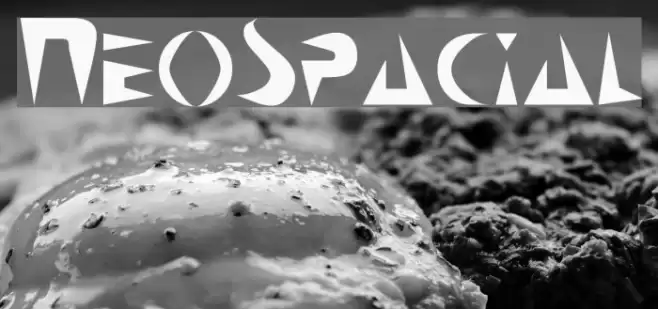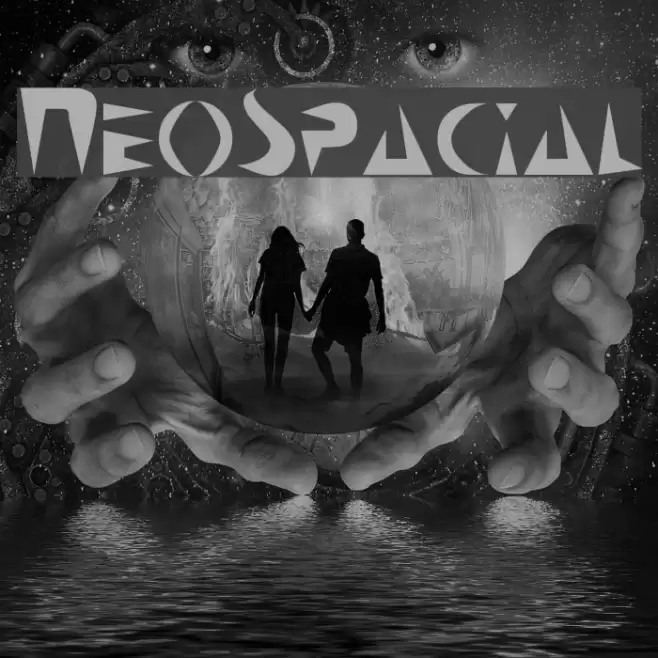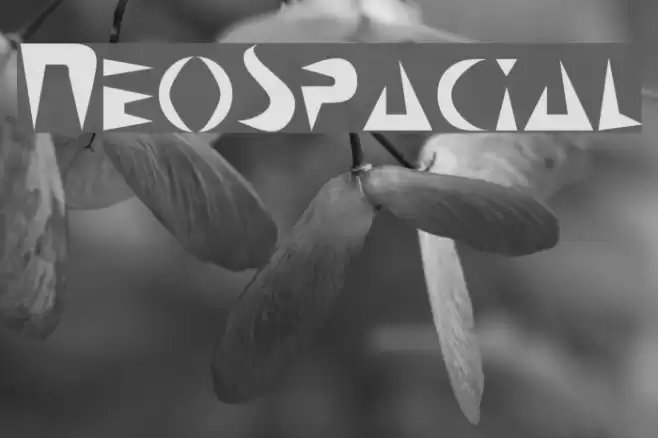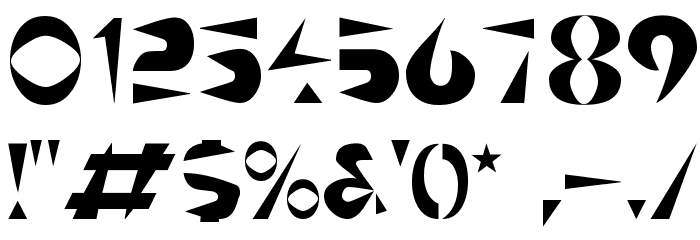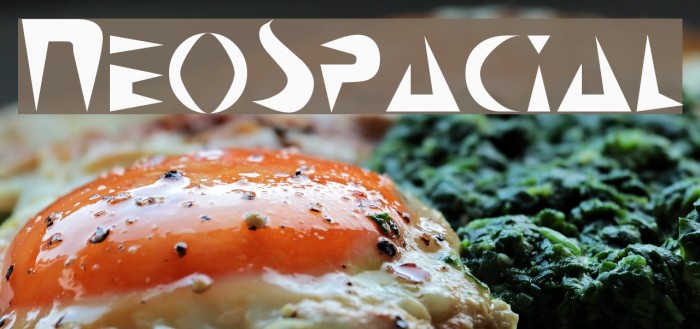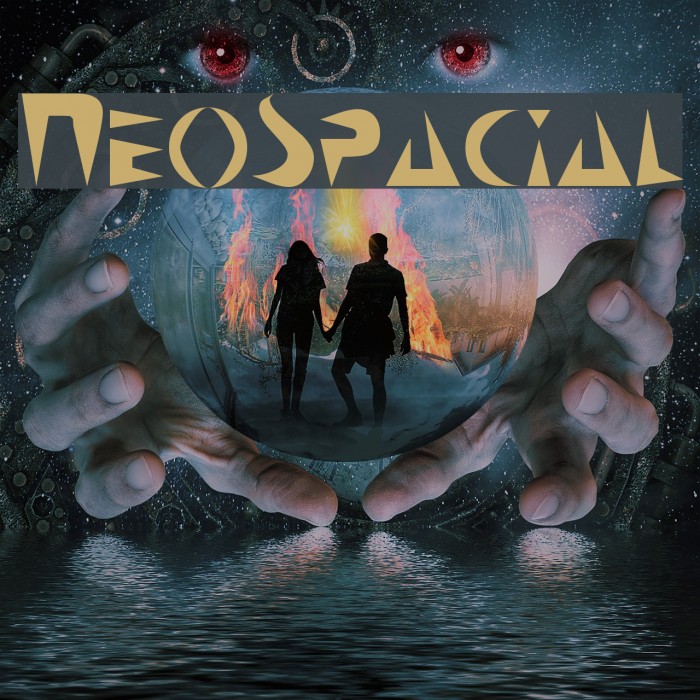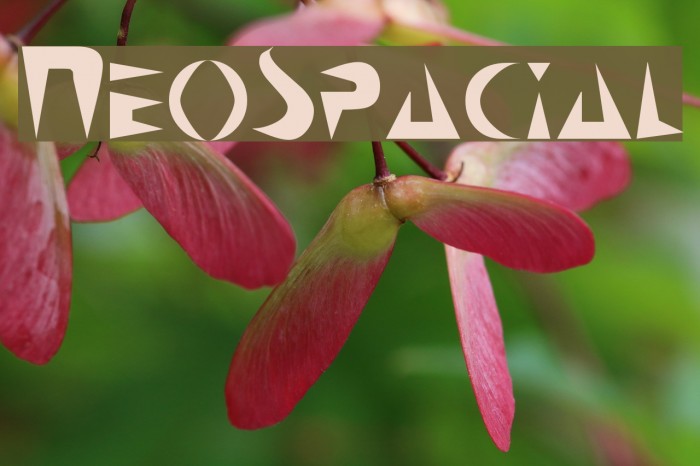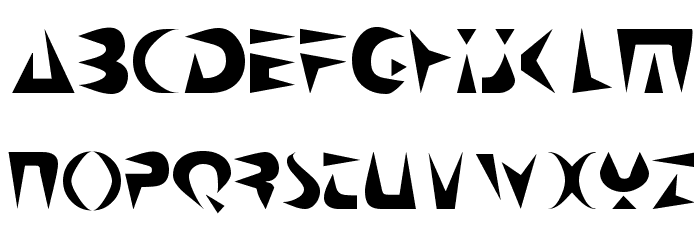
NeoSpacial Font
NeoSpacial Description
This font features a bold and futuristic design with sharp, angular shapes and geometric forms. The characters are constructed with a combination of solid and negative spaces, creating a dynamic and visually striking appearance. The uppercase and lowercase letters maintain a consistent style, with each character exhibiting unique cutouts and angles that contribute to its modern aesthetic. The numbers and special characters follow the same design principles, ensuring a cohesive look across all glyphs. This font's distinct style makes it suitable for projects that require a strong visual impact.
A bold, futuristic font with sharp, angular shapes and geometric forms from Decorative fonts.
- Proposed Projects: Ideal for sci-fi themed designs, tech branding, video game titles, and modern posters.